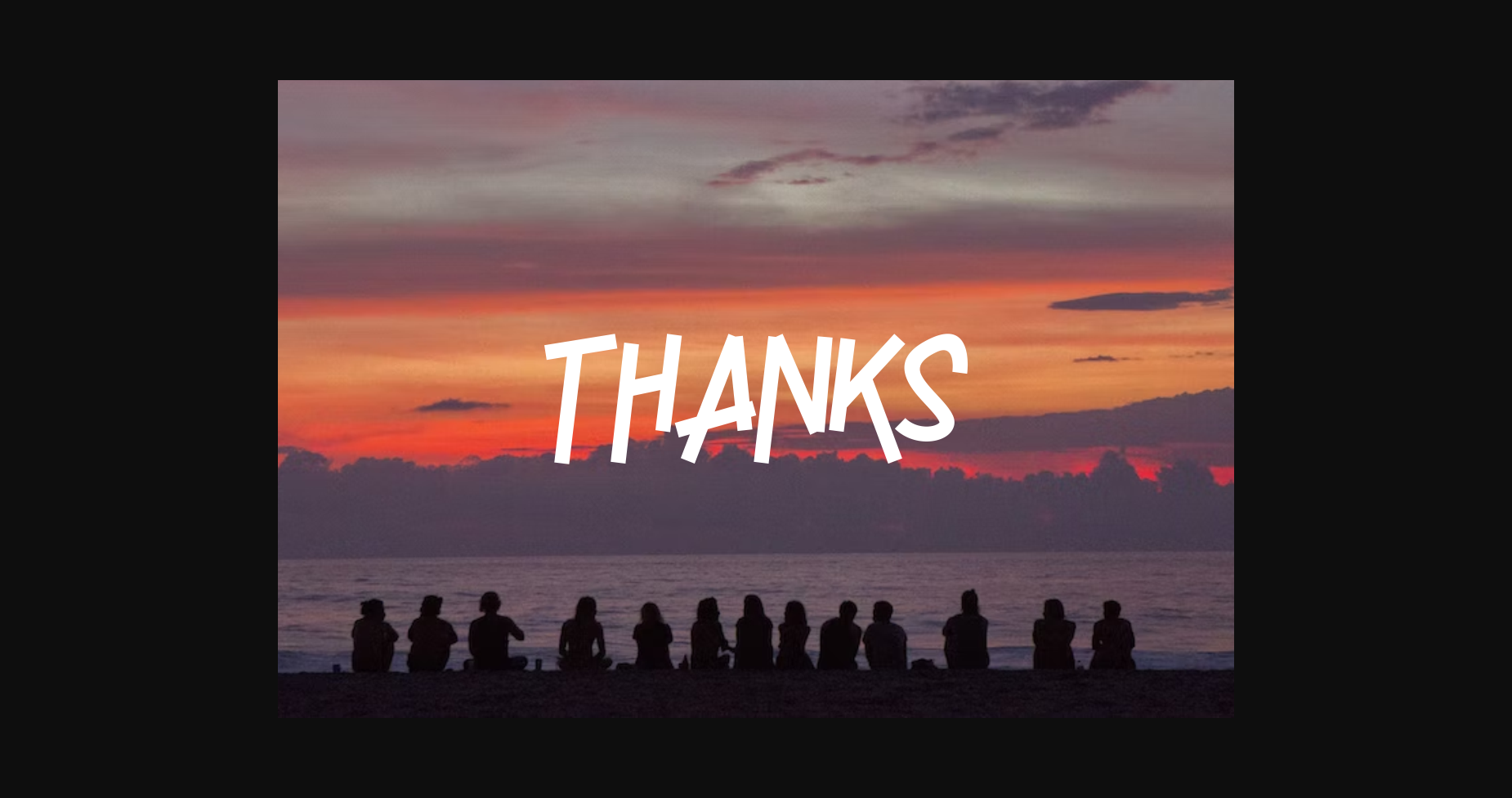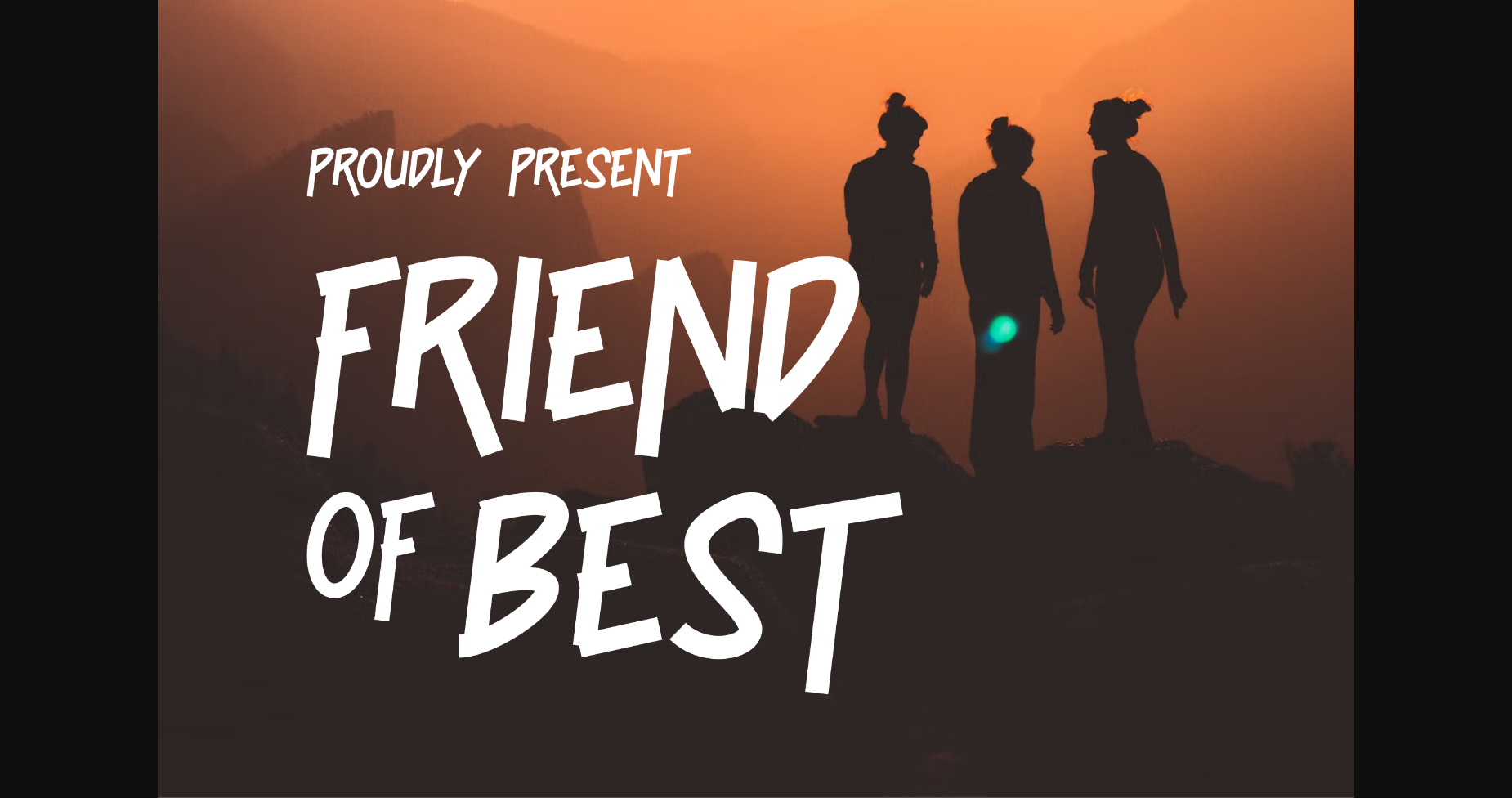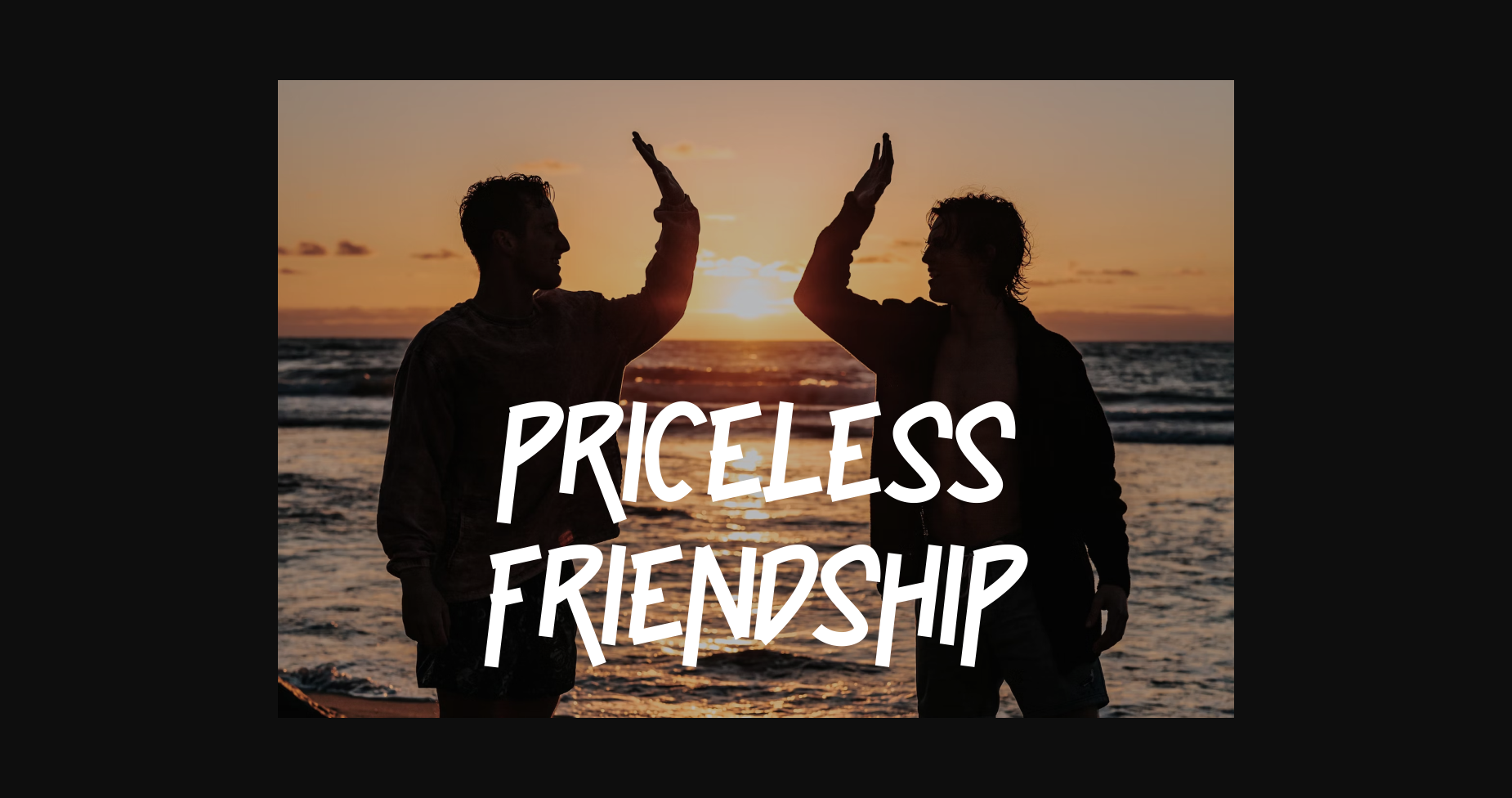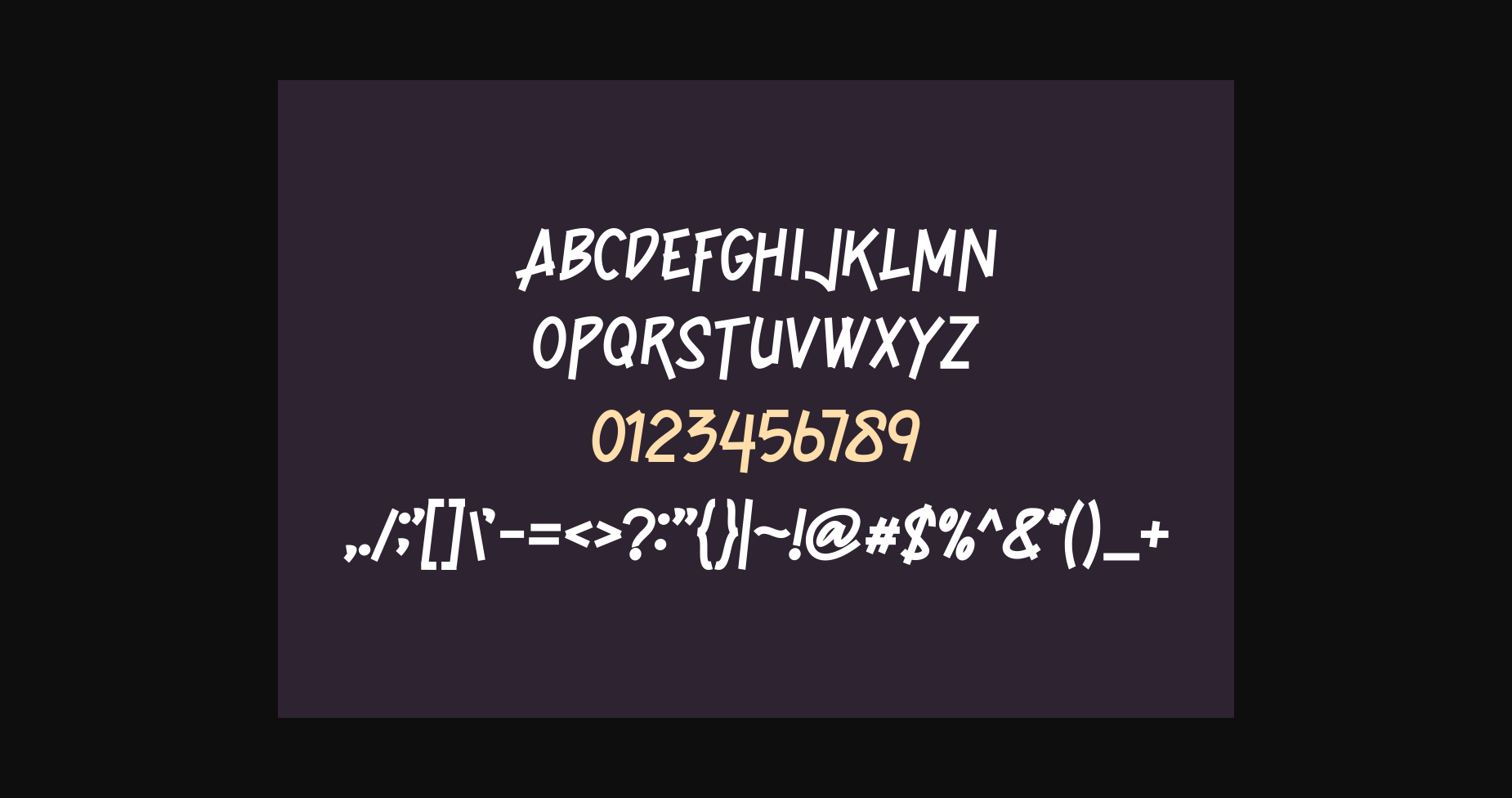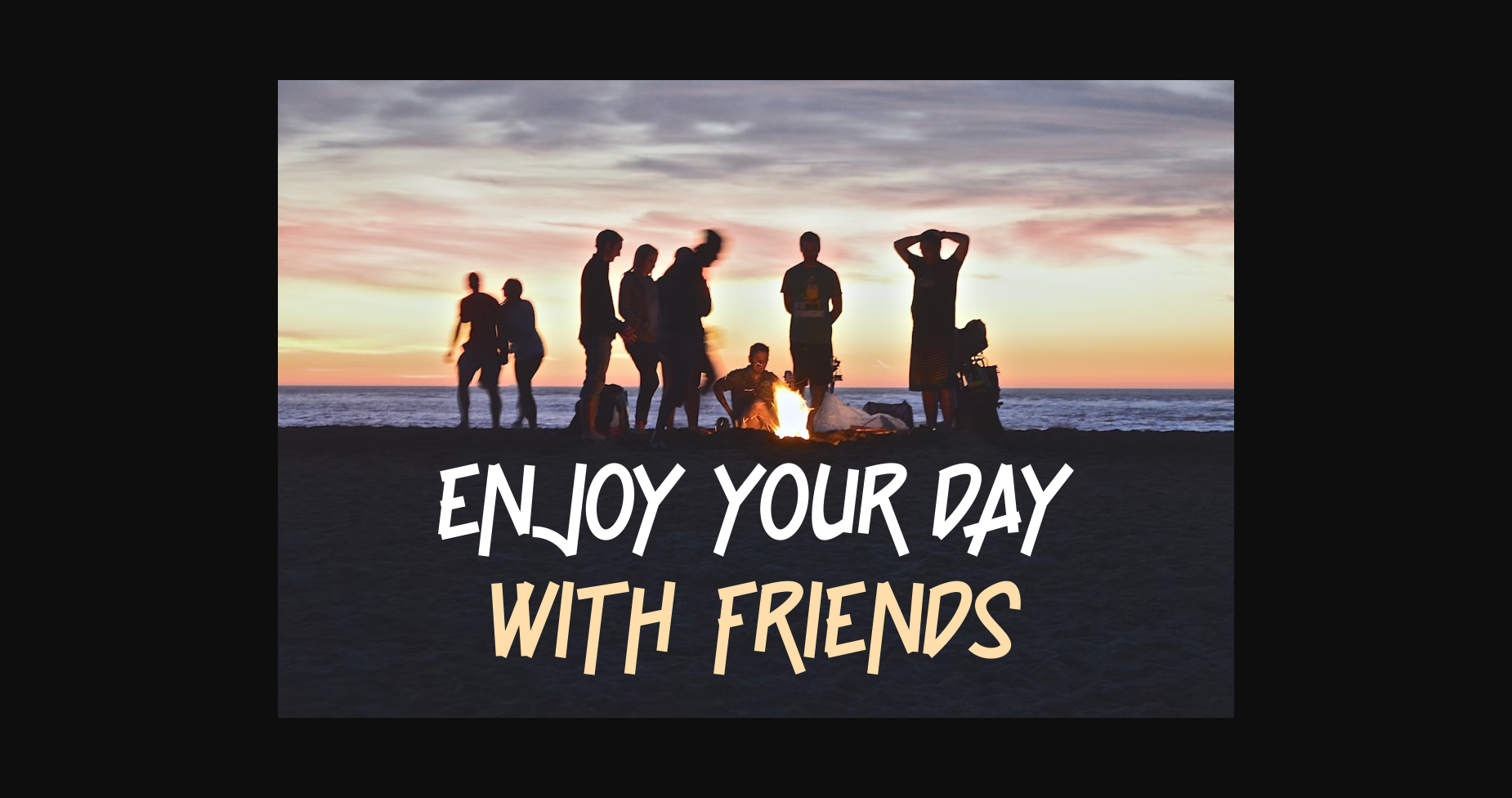
About Friendofbest Font
Introducing our new product **FriendOfBest Font** – Modern Font
**FriendOfBest Font** – Modern Font is a bold and authentic display font. The font is suitable for any branding project like logo, t-shirt printing, esport, and many more. outstanding in a wide range of contexts.